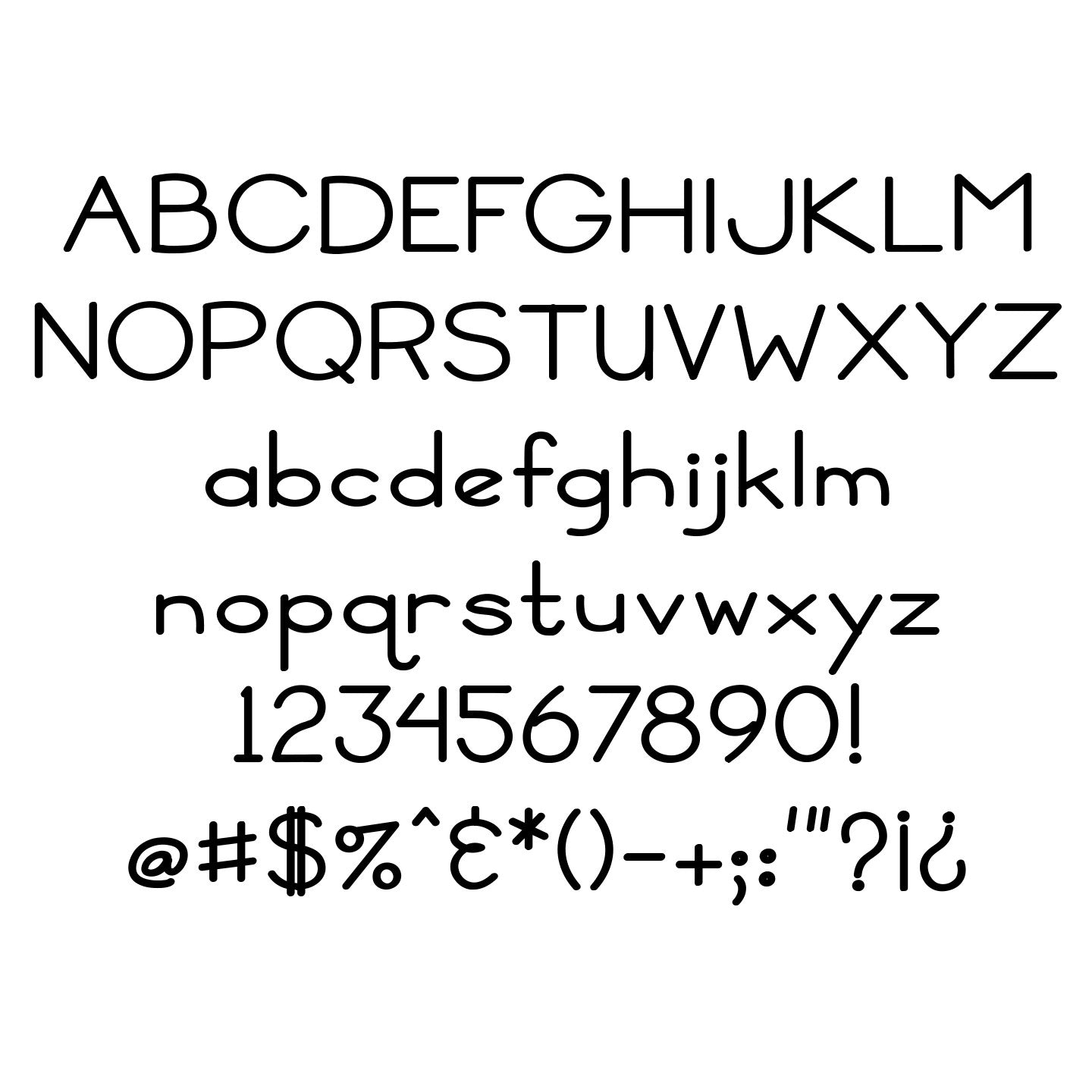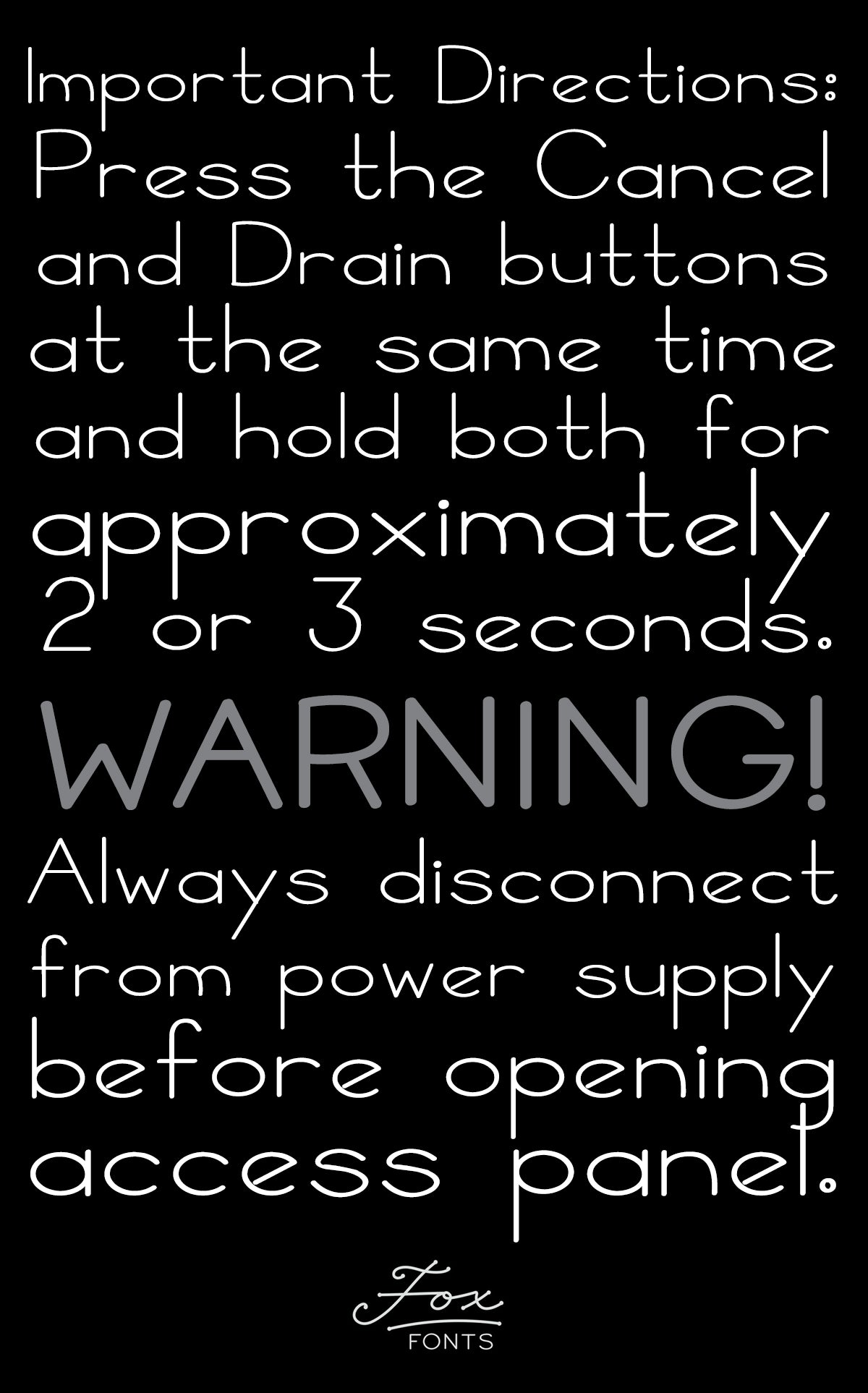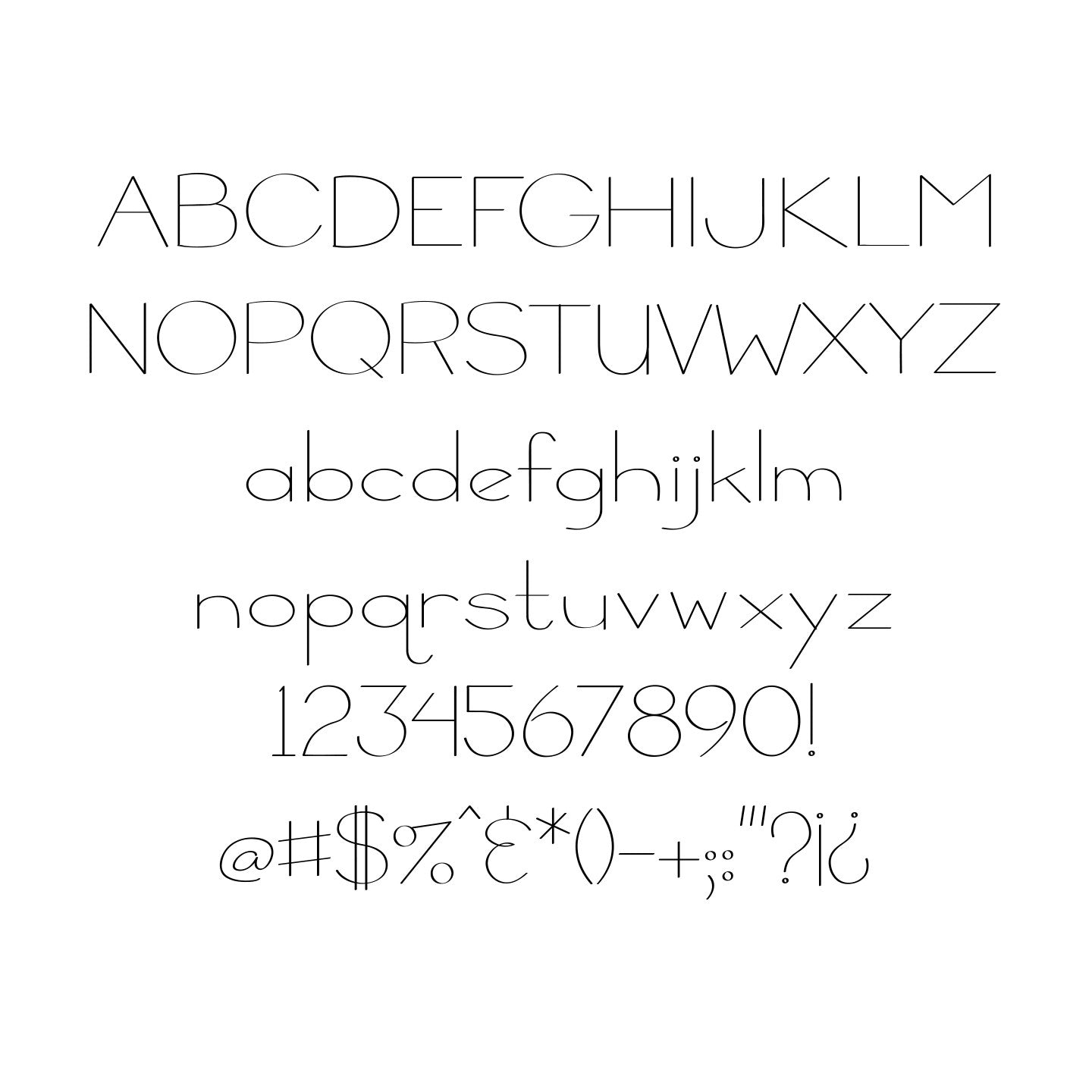
Basic Bits
Airy and contemporary with a handwritten-by-a-draftsman appearance, Basic Bits was built to make modern-looking headlines at large sizes and readable copy blocks at small sizes. This wider but thinner beautiful alternative to Avenir includes three typefaces: Light, Medium, and Bold.
Designed by April Carter Grant